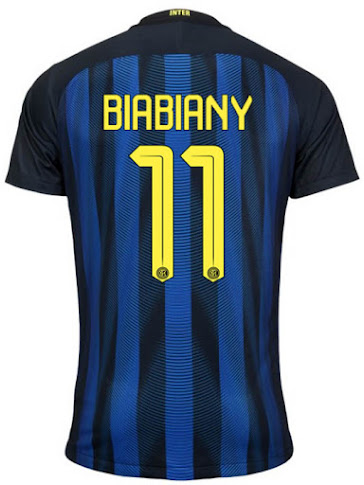
Inter 16-17 Kit Font Revealed
Update: Nike revealed the new Inter kits for the 2016-17 season. And with the yellow detailing added to the home kit, the new Inter player names and numbers are now also yellow instead of white. They are the same as before apart from the color, however.
Launched earlier this week, the new Inter 15-16 Kit stays true Inter's traditions, inspired by the 1990-91 UEFA Cup-winning Inter Shirt. With the new Inter 2015-16 Home Shirt, Nike also introduced a new font style for the player names and numbers on the back.
Inter 15-16 Kit Font
These images show the new Inter 2015-16 Home Shirt with the redesigned Inter typeface for Icardi and Kovacic.
The new Inter 15-16 Shirt typeface is a great design, combining an angular construction with rounded corners and triangular shapes at the ends.
The inside of the Inter 15-16 Shirt numbers features a blue line as well as monochromatic, blue Inter badge.